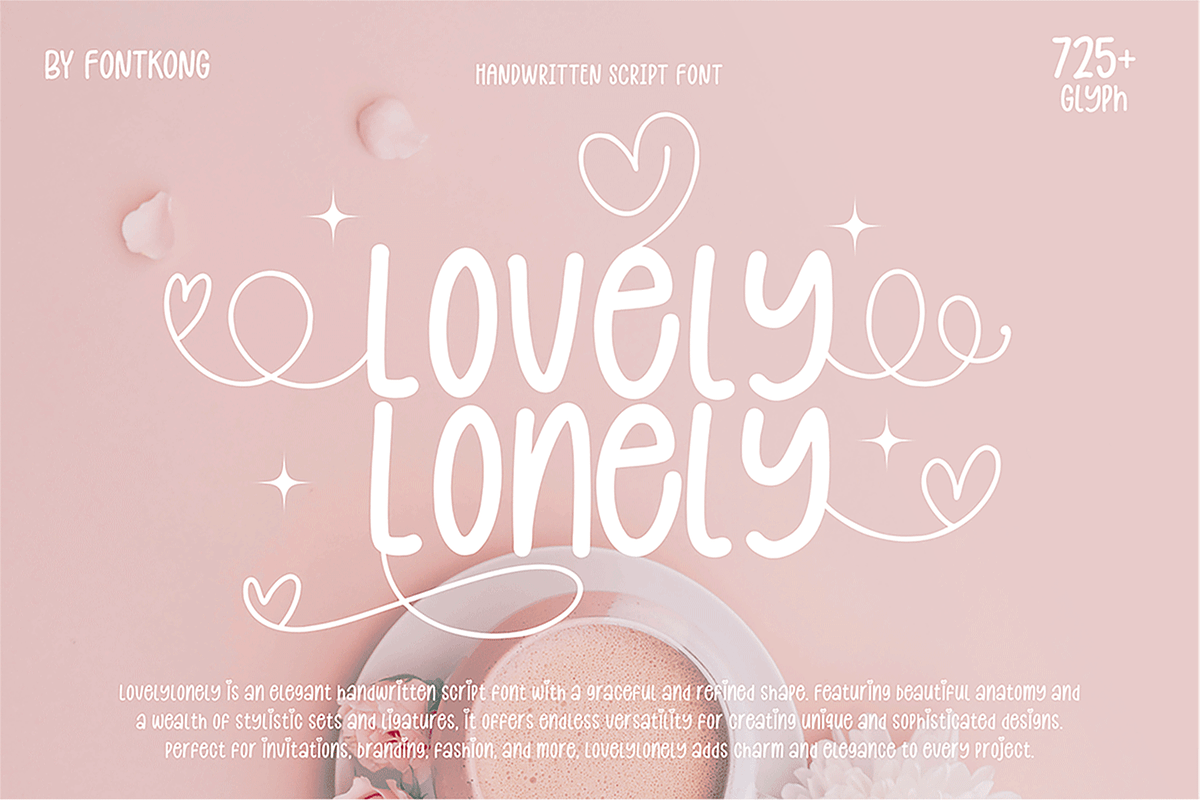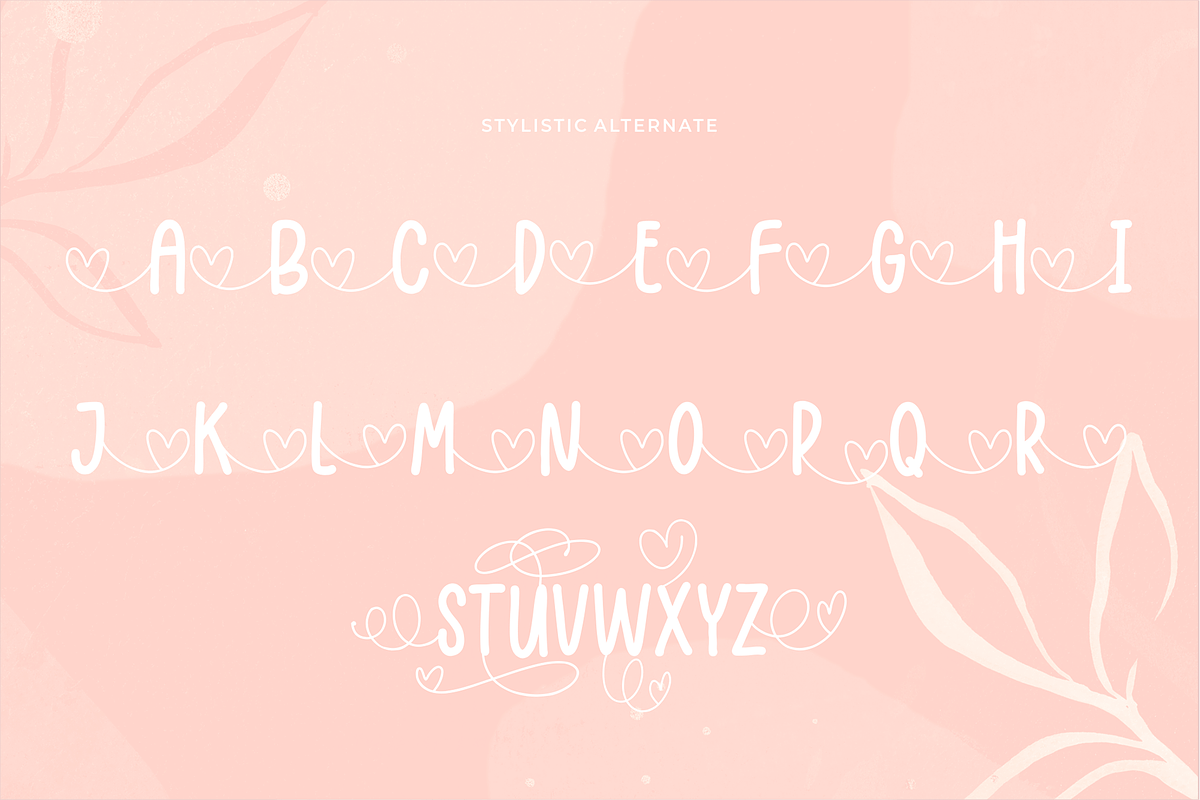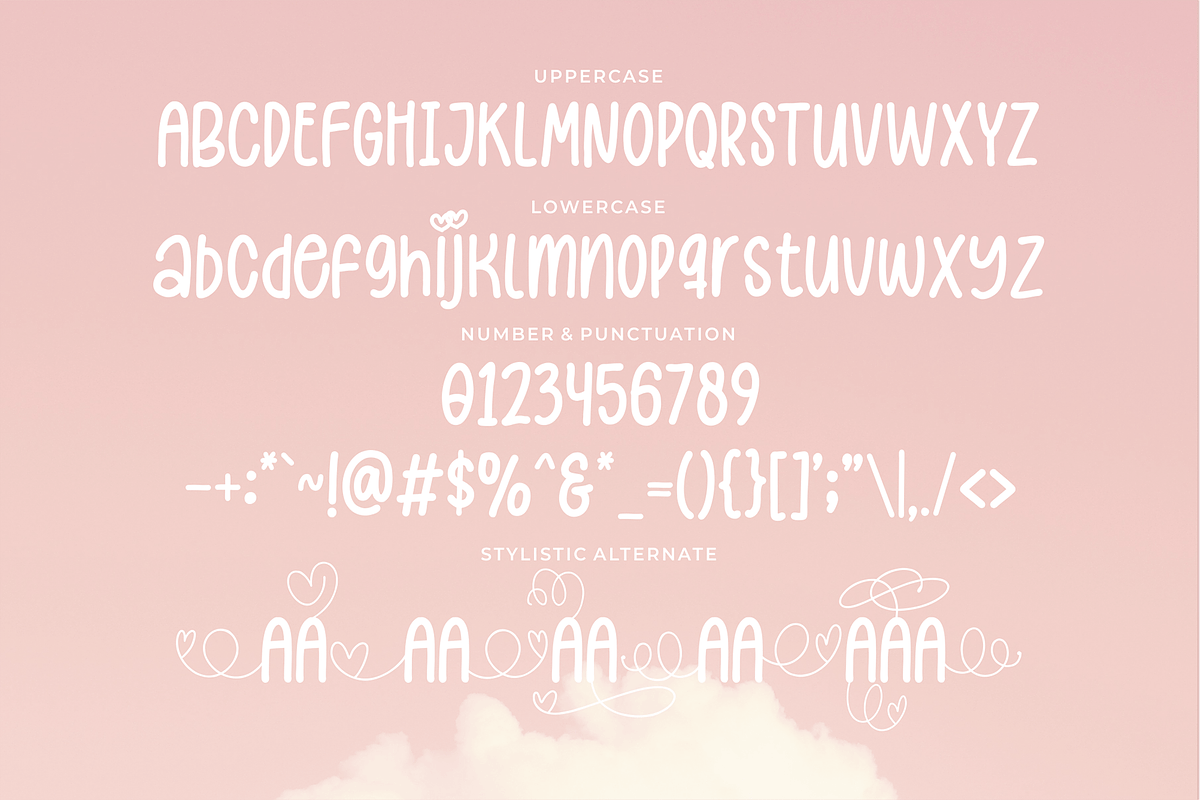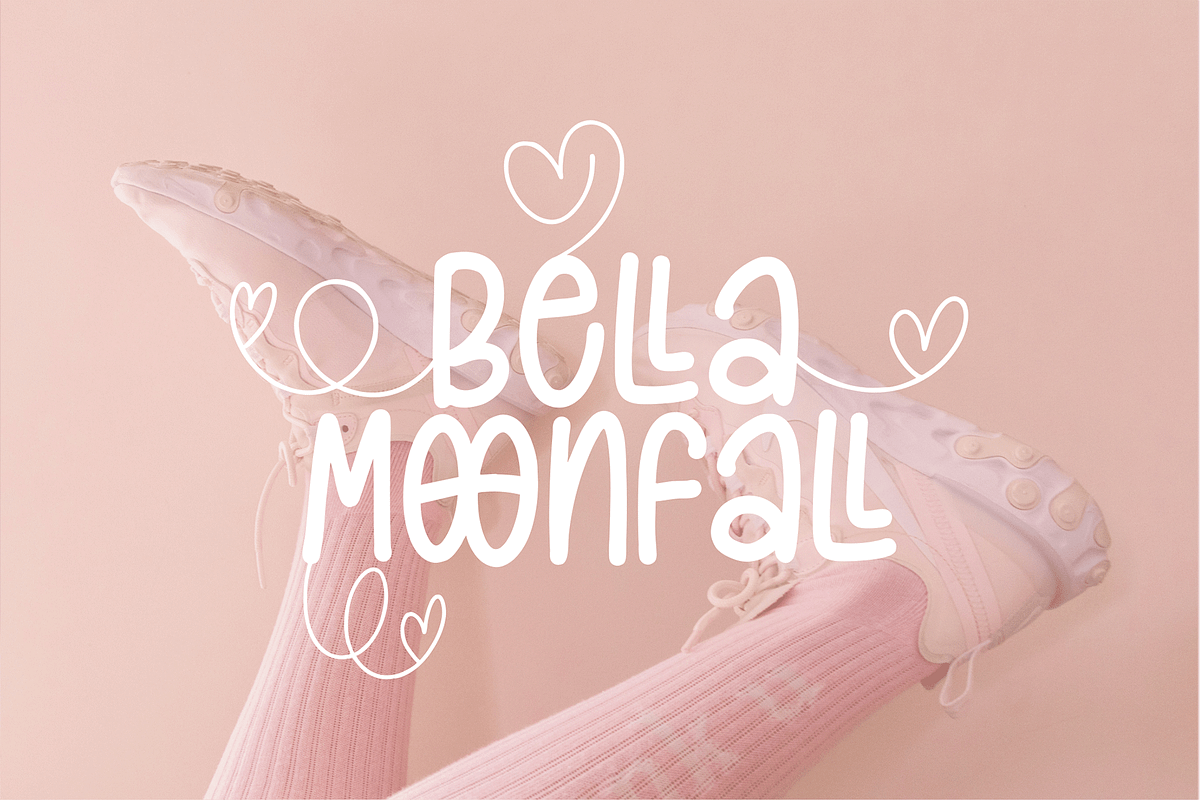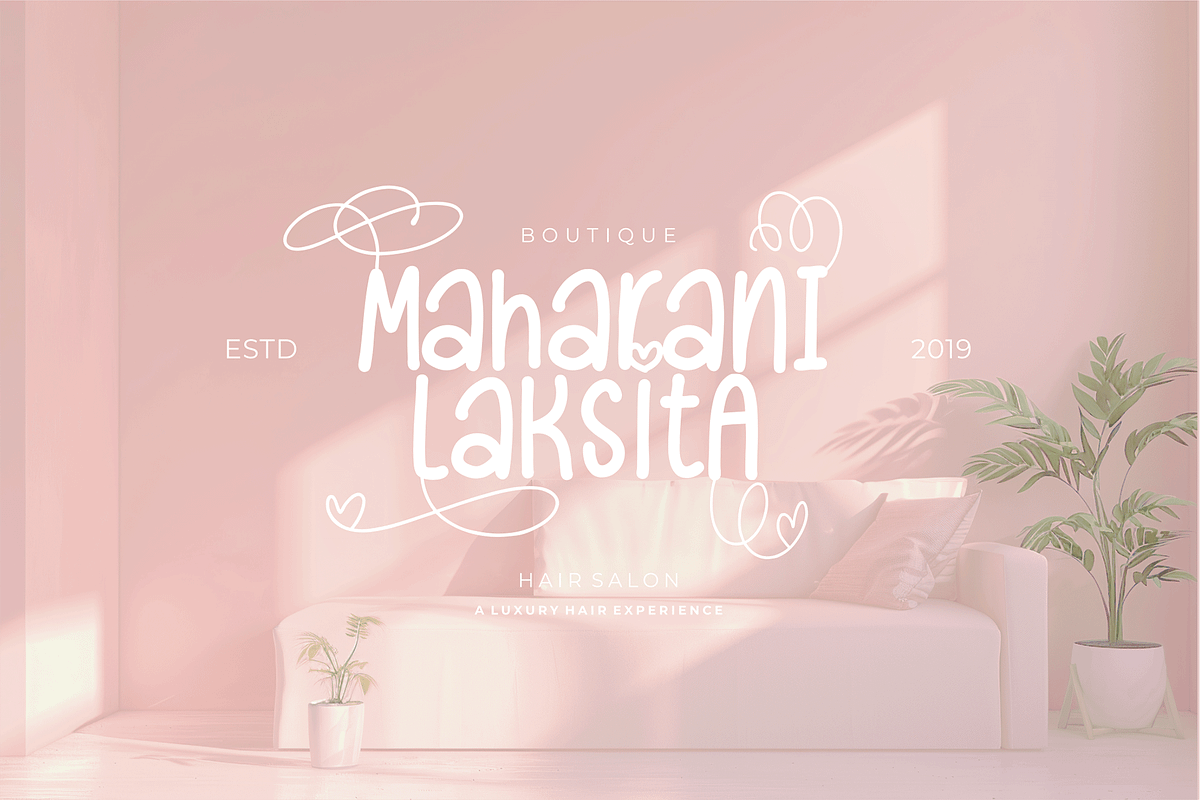
Lovely Lonely – A Handwritten Script
Lovely Lonely – A Handwritten Script Font
Lovely Lonely is a charming handwritten script font that exudes warmth, elegance, and authenticity. With its delicate strokes and natural flow, this font is perfect for adding a personal touch to your designs, whether it's wedding invitations, greeting cards, branding, social media posts, or product packaging.
Designed to mimic real handwriting, Lovely Lonely features smooth curves, graceful swashes, and an organic feel that enhances any creative project. It includes uppercase and lowercase letters, numbers, punctuation, and multilingual support, ensuring versatility for various applications.
If you're looking for a font that combines romance and modern style, Lovely Lonely is the perfect choice to make your words feel heartfelt and expressive.